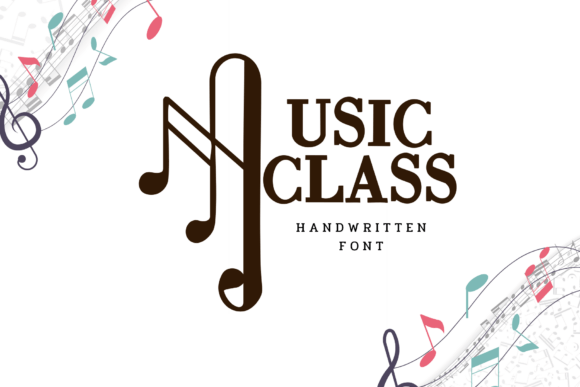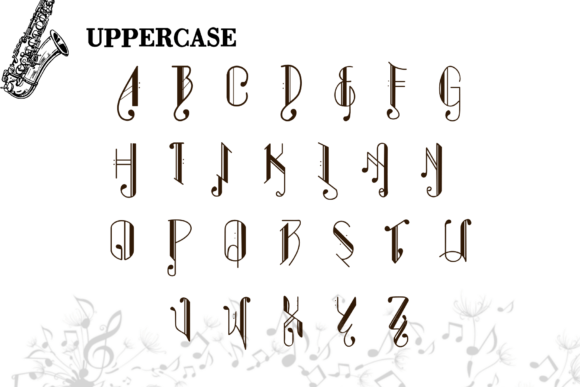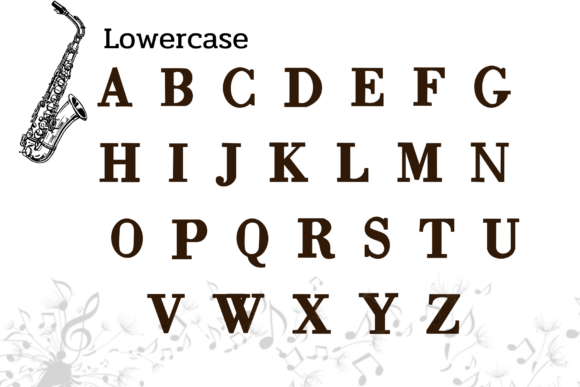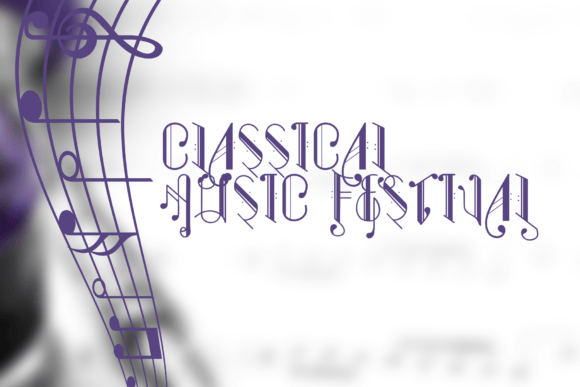
Music Class Font
About the Music Class Font
Elevate your designs with Music Class Font, a font that combines sophistication with readability. Music Class handwritten font with musical elements. You can use it for taking notes, writing a diary, or making greeting cards. However, you can still use it for other designs, such as banners, content, mugs, cards, shirts, stationery, social media posts, and more!
Music Class’s playful, handwritten style with musical flourishes is ideal for projects requiring a lighthearted and approachable feel. It excels in headlines, short text blocks on social media, and packaging for products targeting a younger demographic or those with a creative, whimsical brand identity. Avoid using it for large blocks of body text or UI elements where legibility is paramount; its informal nature might compromise readability.
Consider pairing Music Class with a clean sans-serif like Open Sans for a balanced contrast, or a more geometric sans-serif like Montserrat for a modern feel. For a more sophisticated look, a delicate serif like Lora could work well, softening the handwritten informality.
The font’s inherent charm makes it unsuitable for projects needing a serious or corporate tone. Its personality is best suited to brands associated with music, arts, education, or children’s products.
Music Class Font Usage Examples
Music Class Font Example